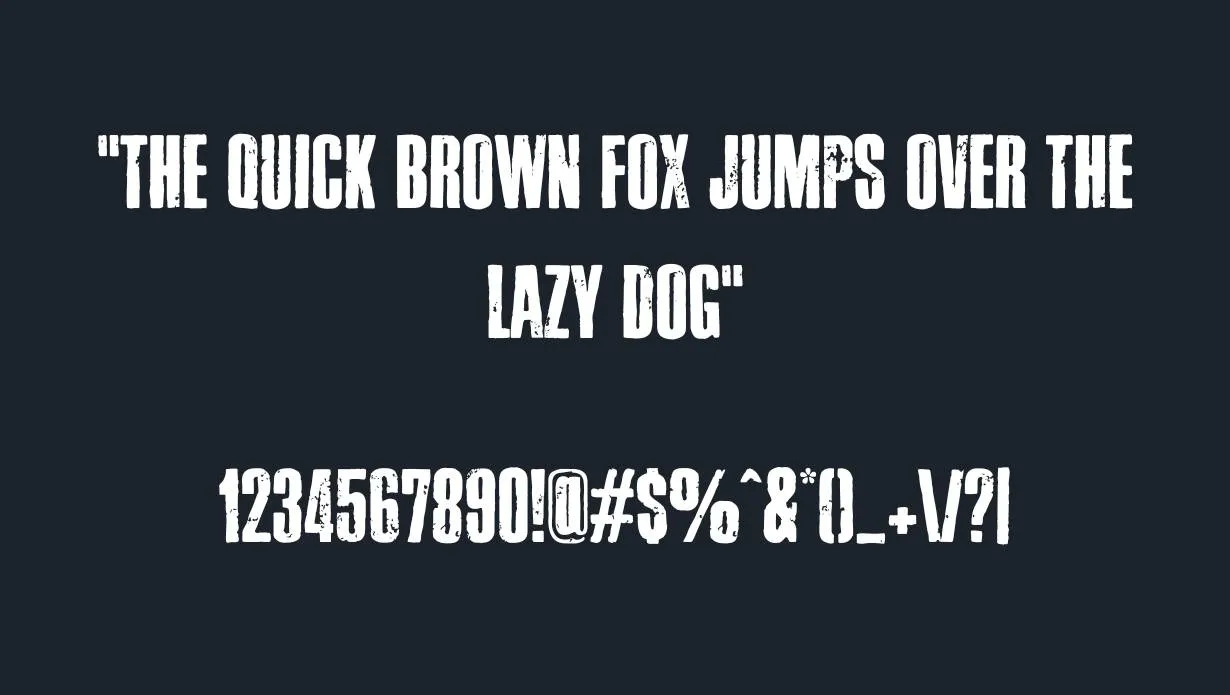
The Letterpress Font adds a touch of vintage charm to your designs, like the imprints of an old printing press. Ideal for projects that embrace nostalgia or a classic aesthetic, its characters bring a sense of authenticity.